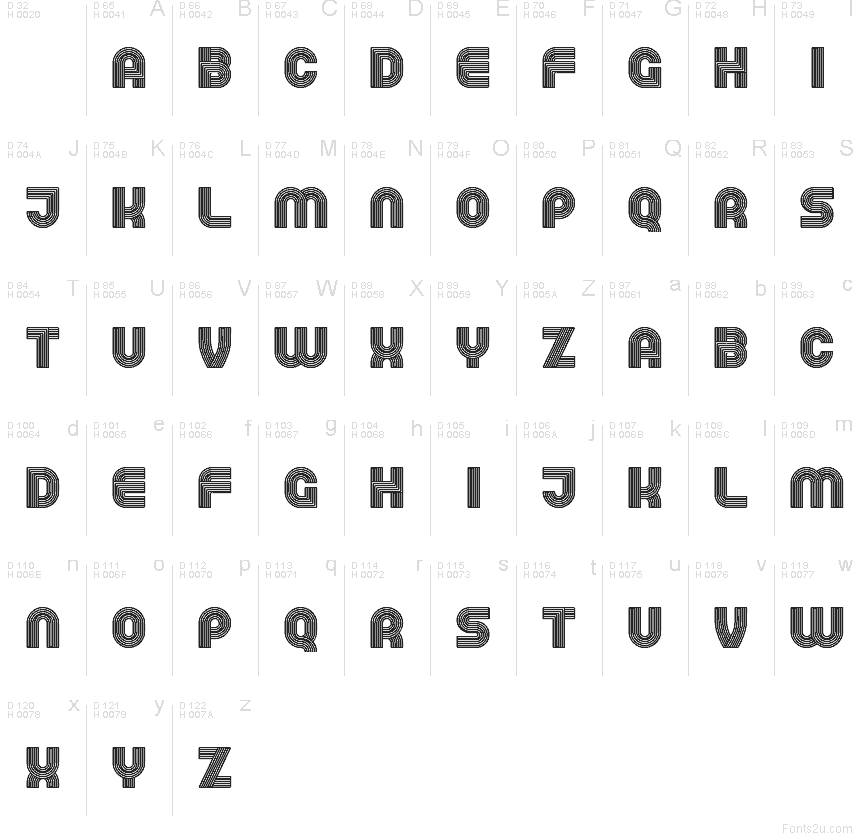
Running Extravagant Regular
Running Extravagant, Vladimir Nikolic's free striped groovy display font, channels late-60s and 70s poster lettering through dense parallel lines and soft rounded turns. The letters feel continuous and almost tubular, with the stripes doing most of the styling while the broad arches and open inner shapes keep the rhythm easy and bold.
It fits music posters, retro branding, event flyers, packaging, and magazine cover lines where a headline needs a swinging, graphic pulse. As a free font, it also makes sense for title cards, short logos, and monograms, since the line-built forms give even a few letters that unmistakable period flavor.